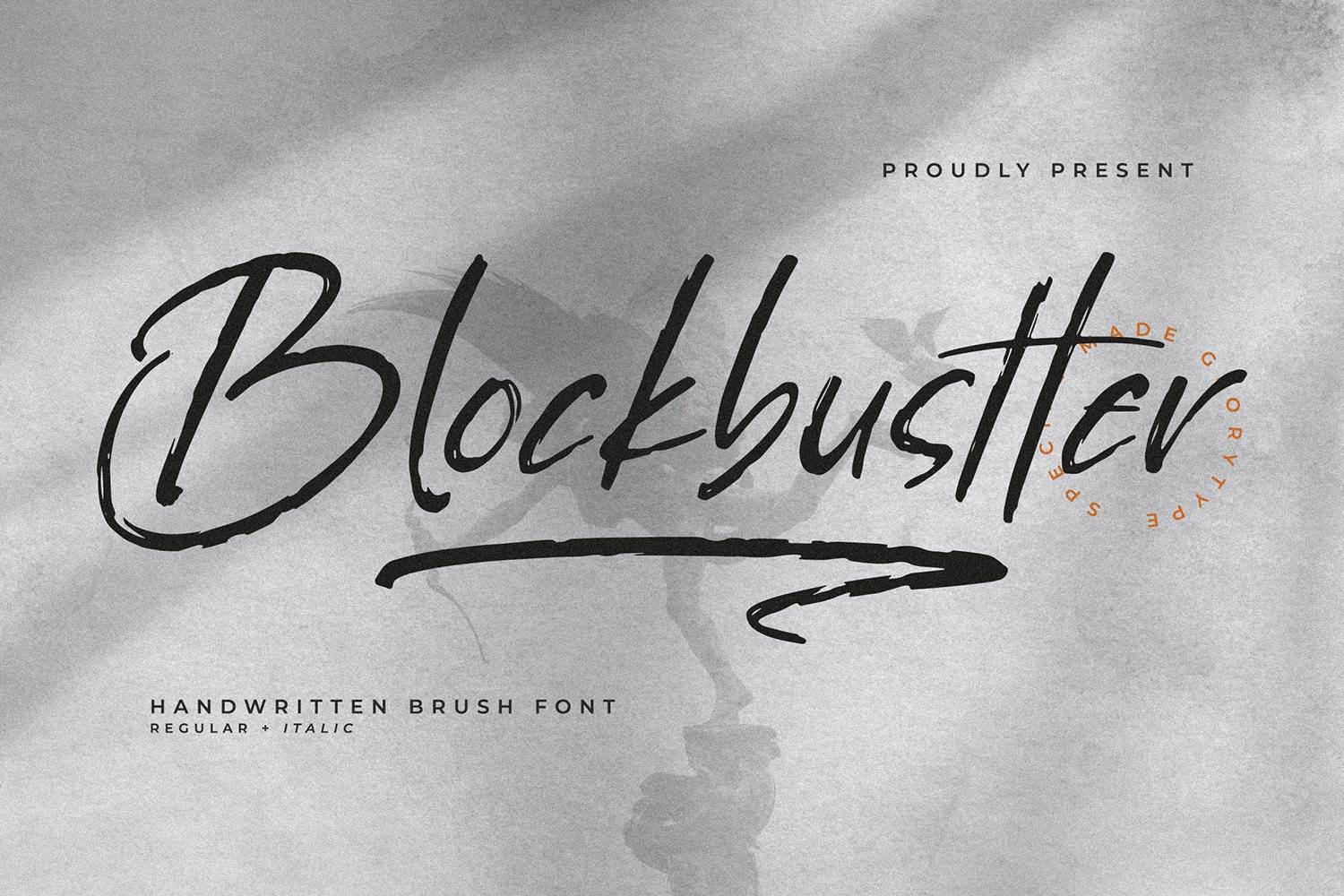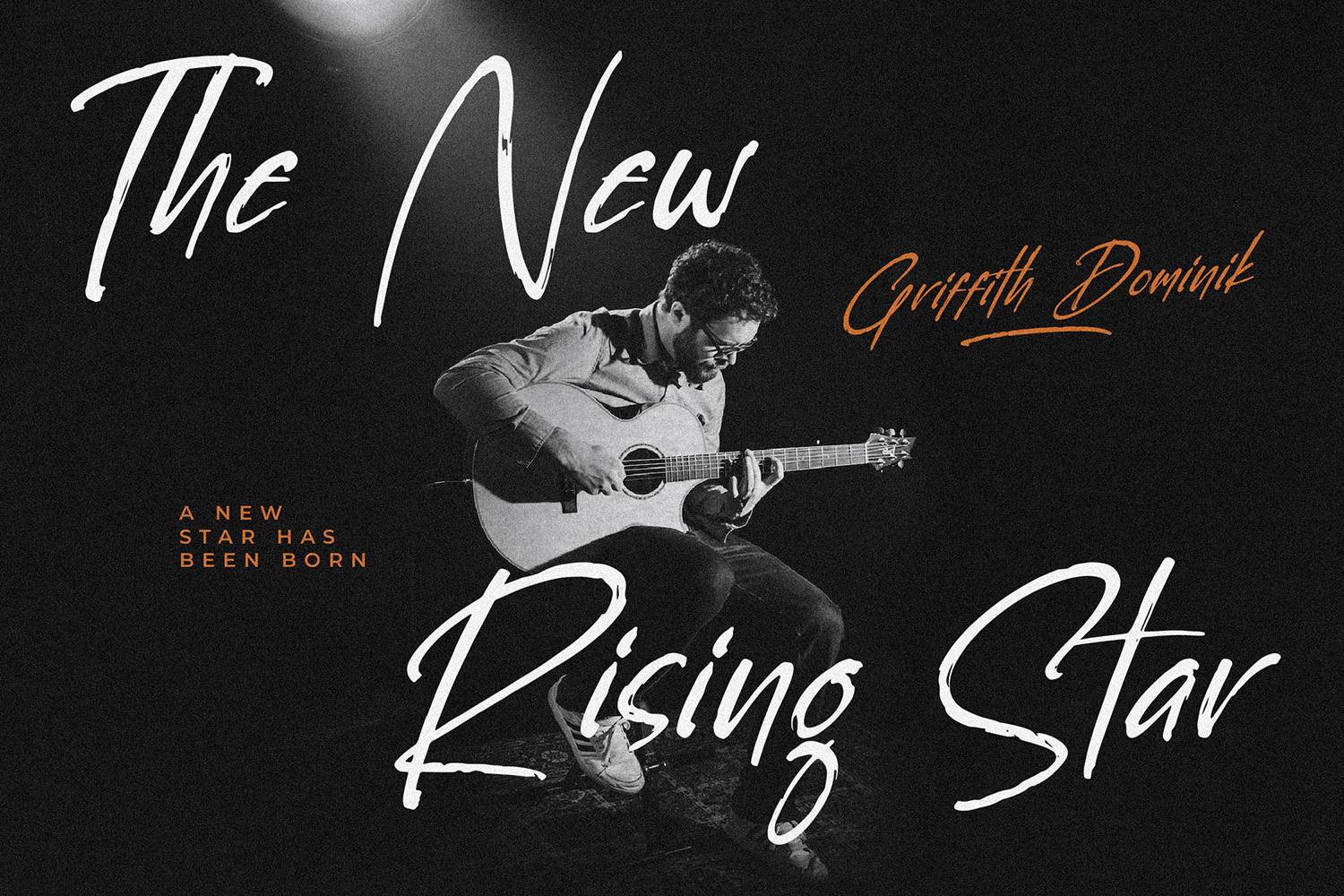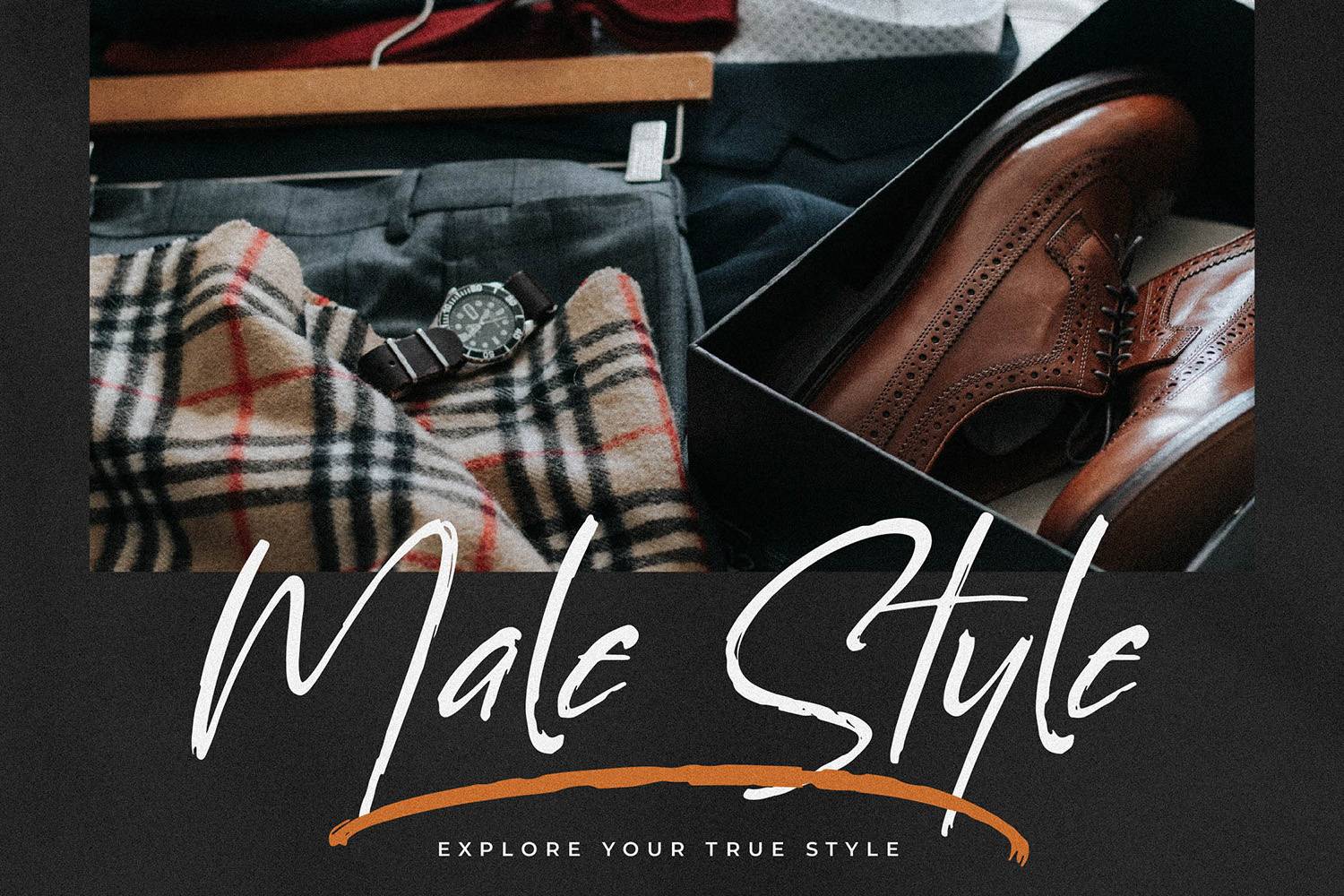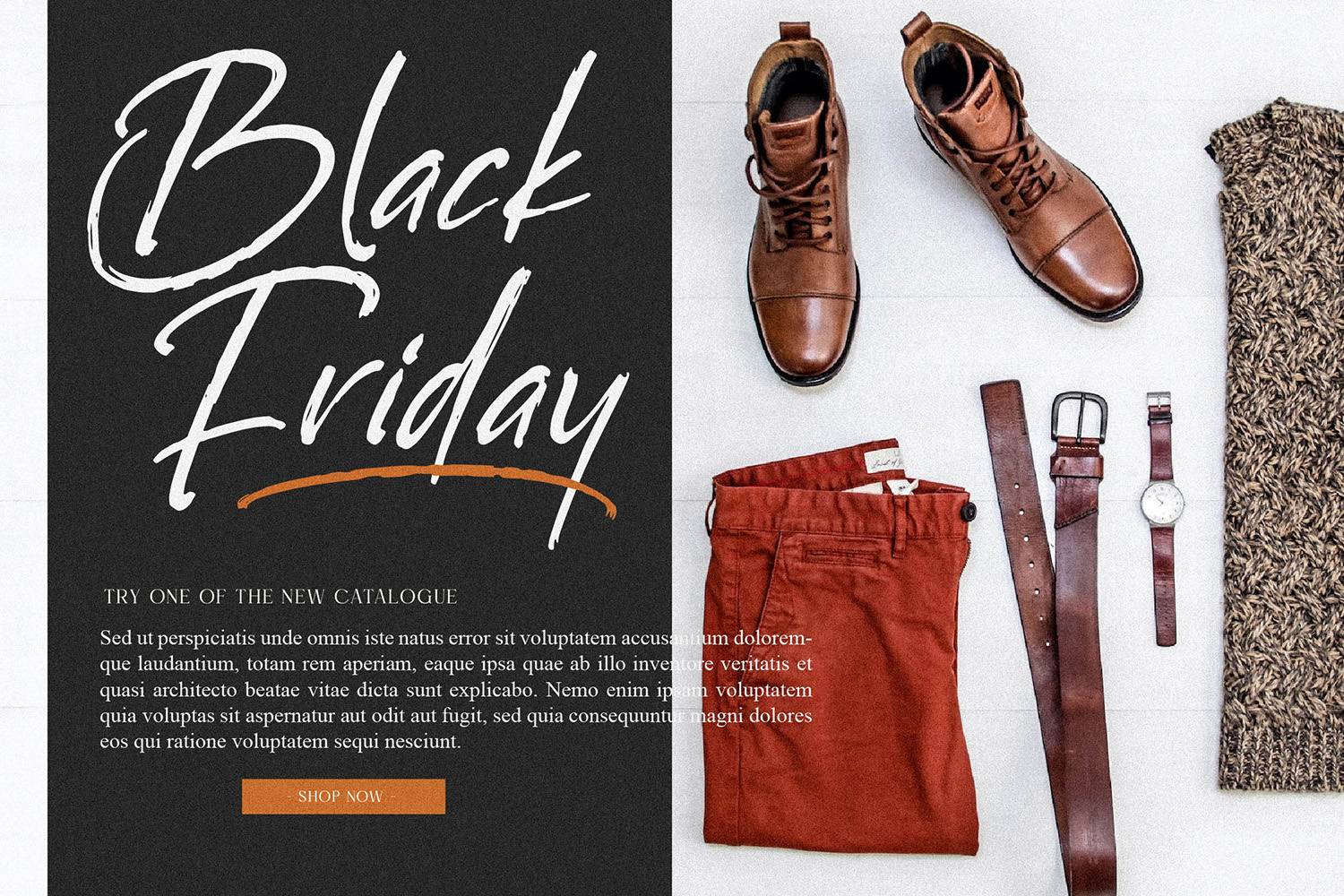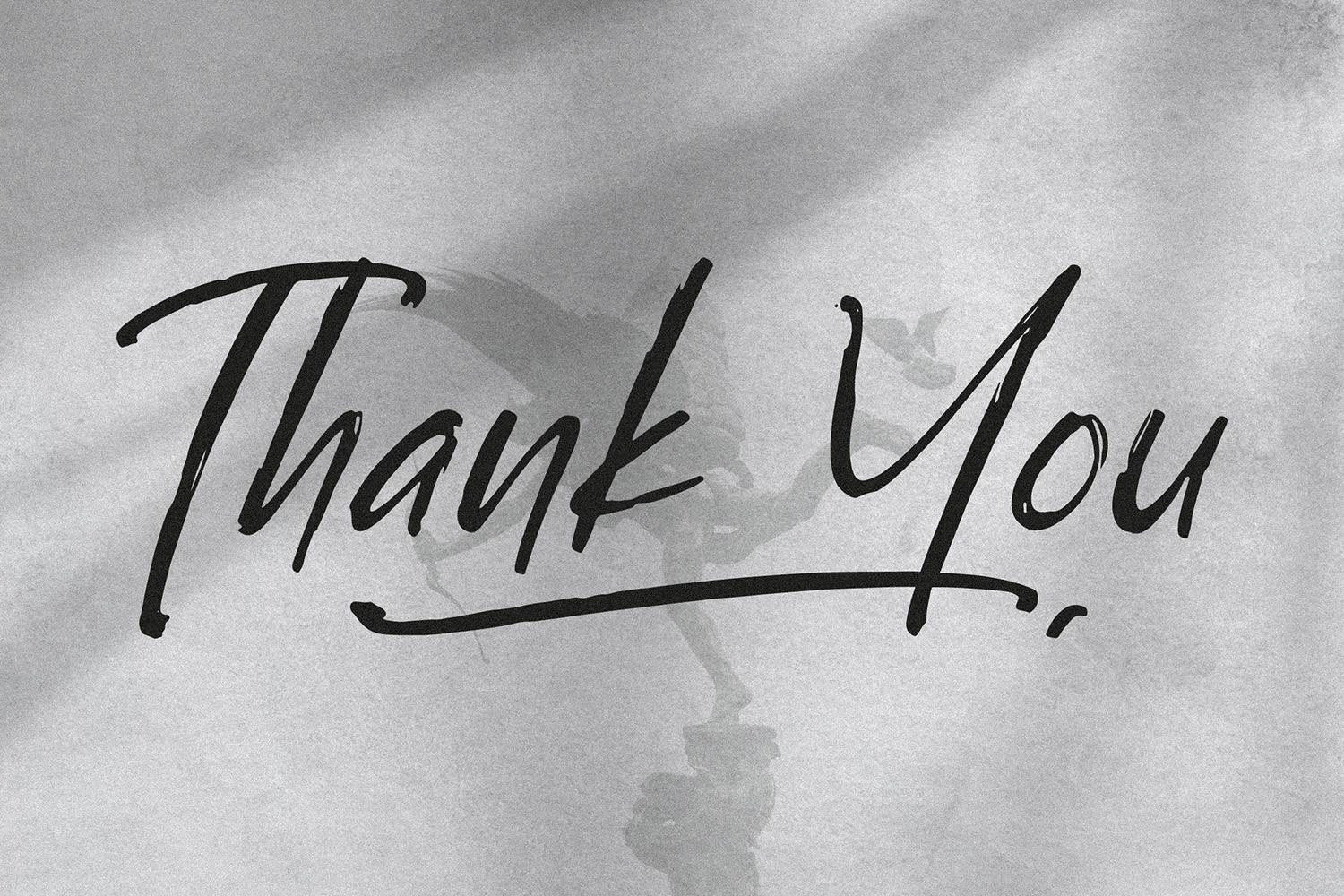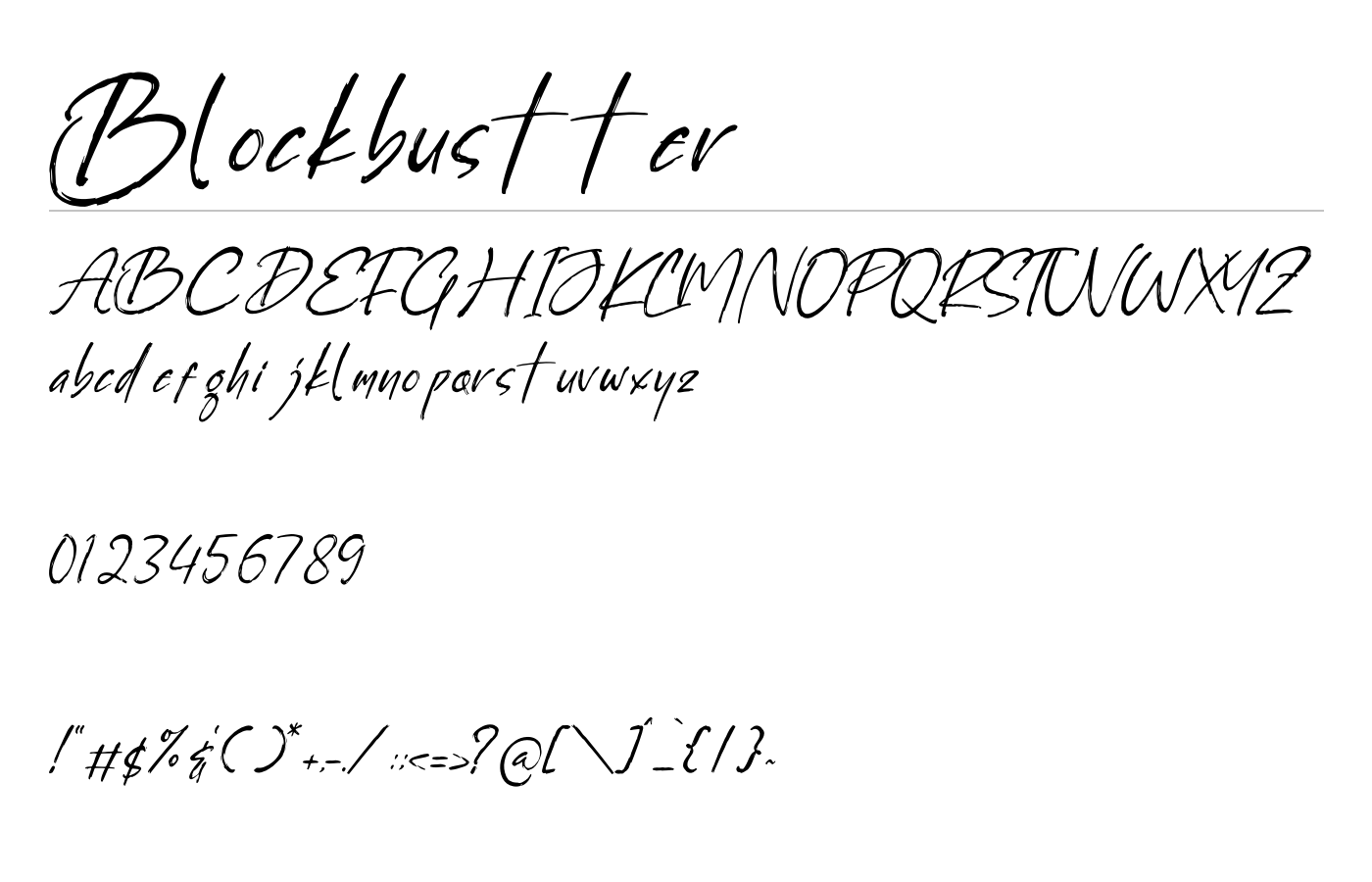
Blockbustter is a lively, hand-drawn script font characterized by its slender, flowing strokes and casual, artistic feel. Its irregular, slightly rough lines give it a dynamic and personal touch, making it ideal for creative projects that aim to convey energy and individuality. This font works well for branding, invitations, and editorial designs where a modern yet informal handwritten style is desired.
Blockbustter Font
About Blockbustter Font